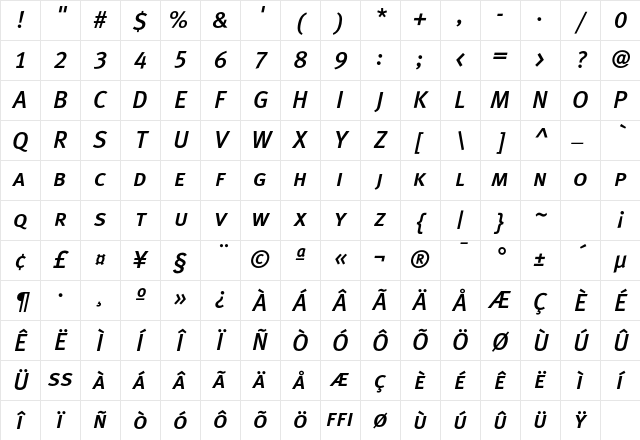
MetaPlusMedium- CapsItalic
Design Context for MetaPlusMedium-
MetaPlusMedium- is a composed and adaptable typeface that performs quietly and consistently across a wide range of design contexts. The slanted form adds forward momentum and visual energy.